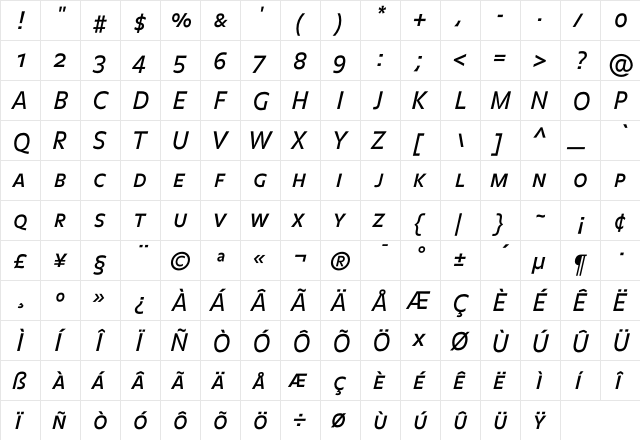
Balance CapsItalic Font Preview
Balance CapsItalic
Design Context for Balance Typeface
Balance takes a measured approach to typography — its balanced proportions and neutral character make it a reliable workhorse for both digital and print work. Its italic angle brings a sense of urgency and motion to the letterforms.
Pro Tip: Use Balance for emphasis, pull quotes, and subheadings where its slanted energy can add rhythm to the layout.